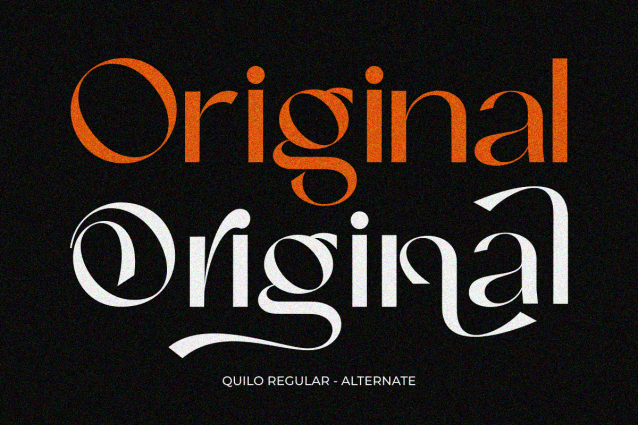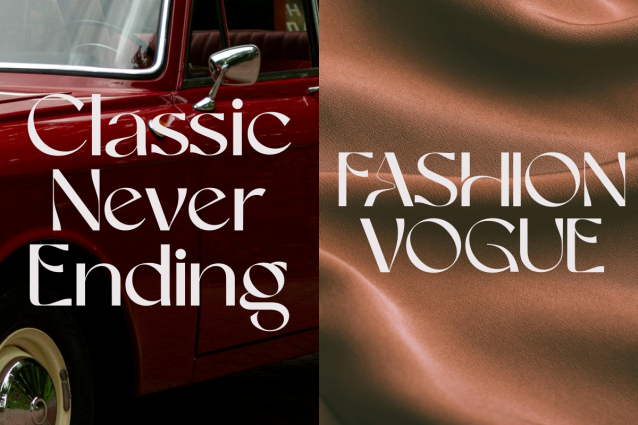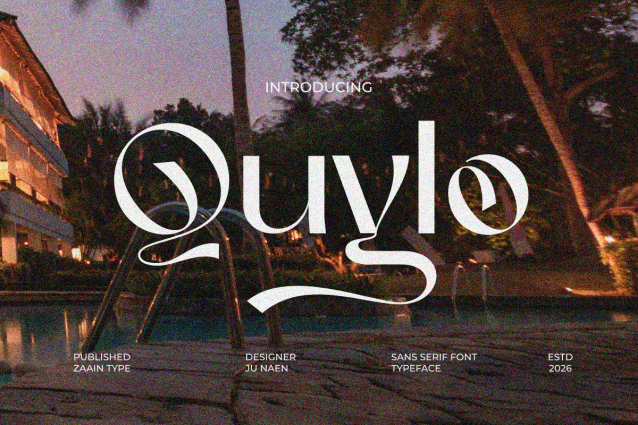
Quylo Font
Quylo Font is a modern sans serif font that blends simplicity with a touch of unique character. Designed with clean lines and balanced proportions, Quylo delivers a fresh, minimalist look and remains highly readable at various sizes. Each letter features subtle details that create a professional yet stylish impression, making it ideal for branding, editorial work, digital design, and modern product displays.
With its elegant contemporary feel, Quylo helps build a strong visual identity without appearing excessive. This font is perfectly suited for projects that prioritize clarity, modern aesthetics, and a premium look, making it an excellent choice for designers who want to create clean yet distinctive visuals